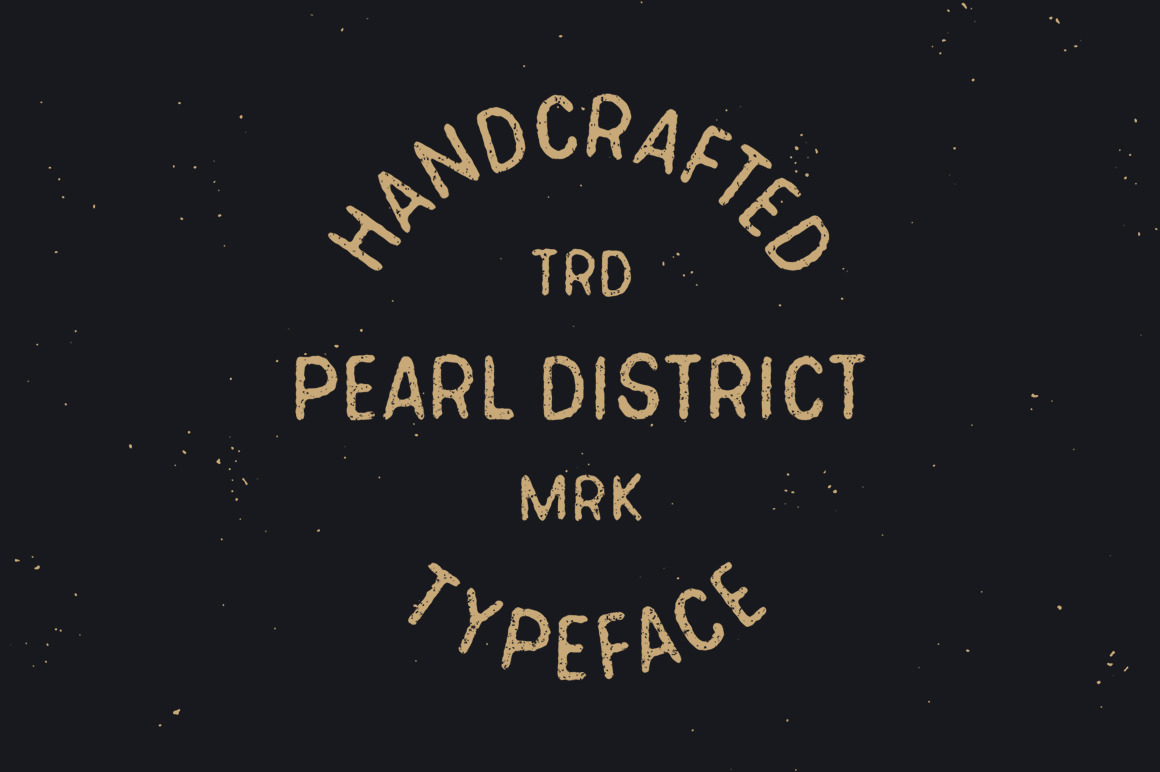
Pearl District - Hand Drawn Font
Pearl District is a hand drawn, slightly-condensed display face. It's perfect for your hand drawn logos and branding. This font comes in .TTF format and includes 10 numbers, Various Glyphs, and 26 letters. This font is best when used with my other hand drawn fonts: Sergeant and Oak & Ash. Grab it now for the Introductory rate of only $12.